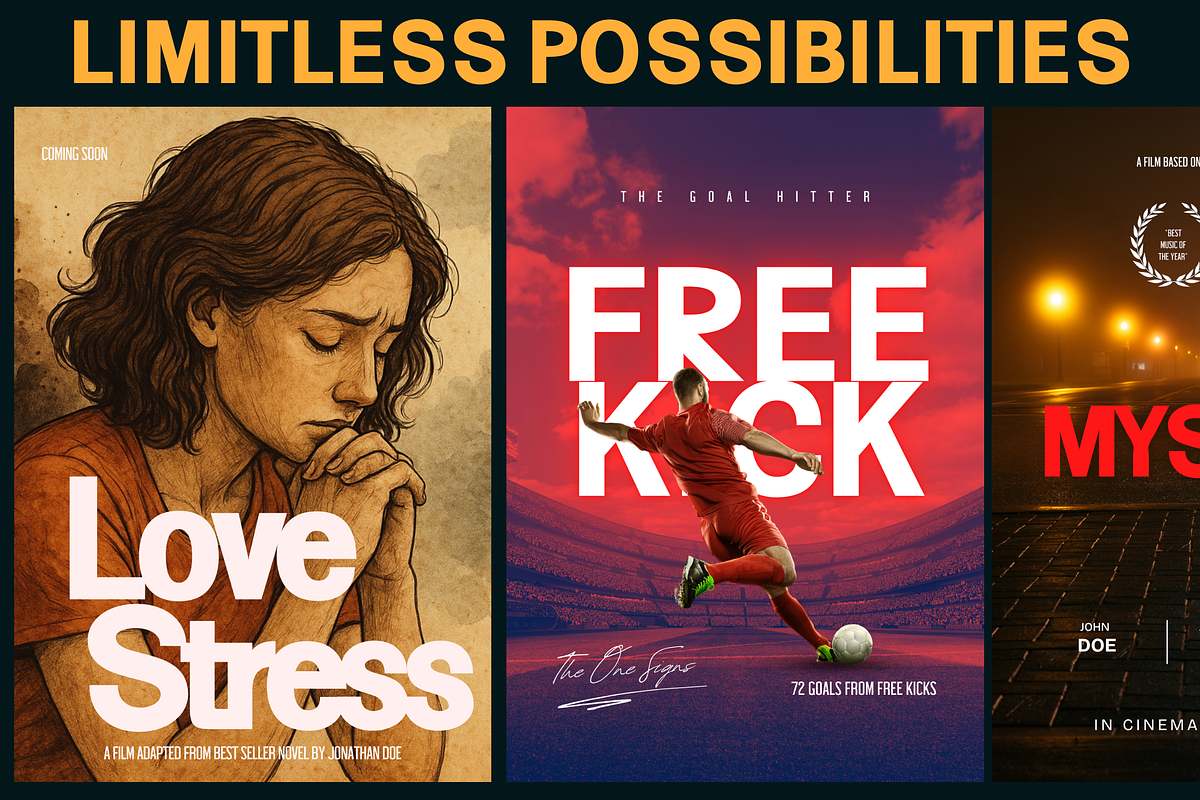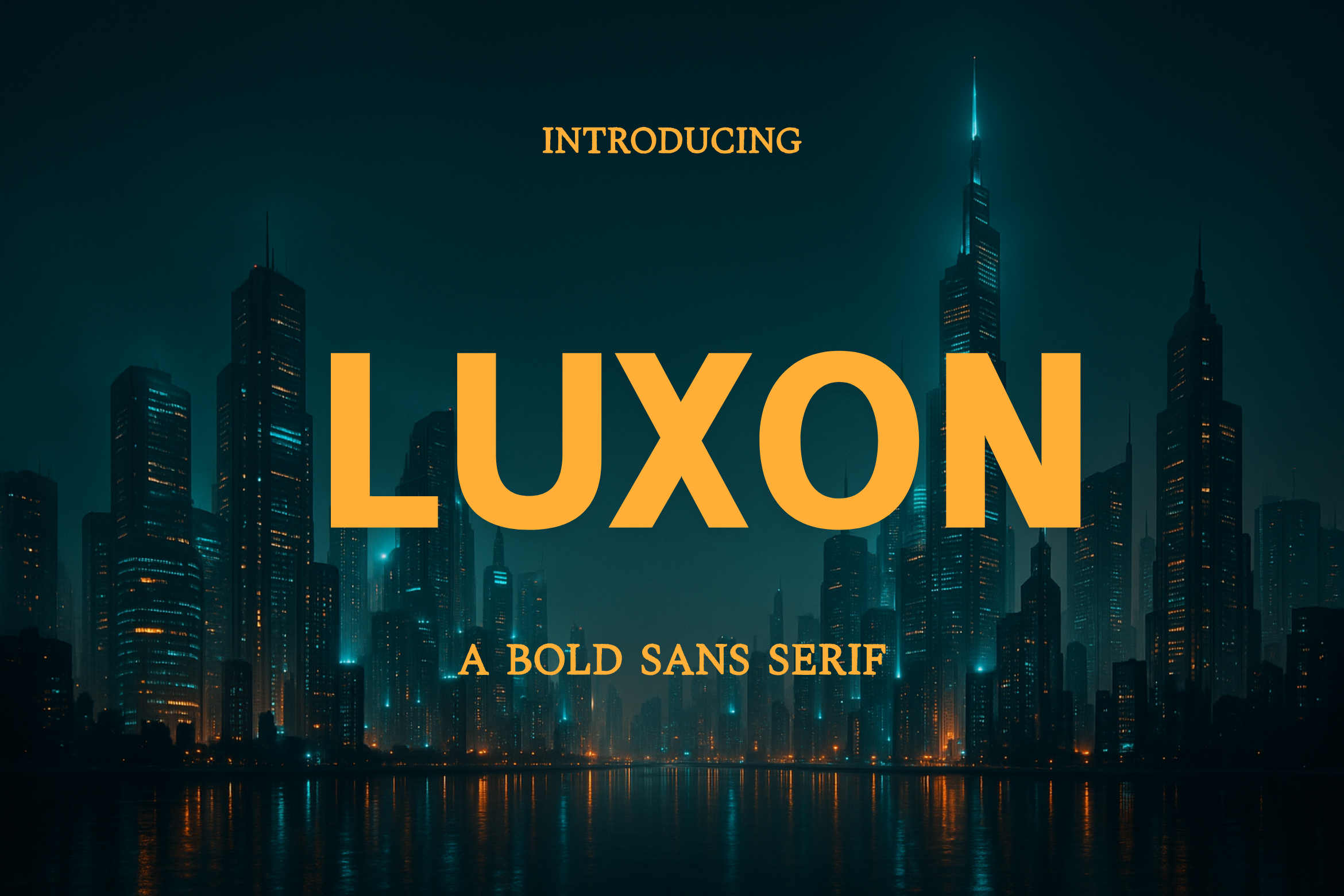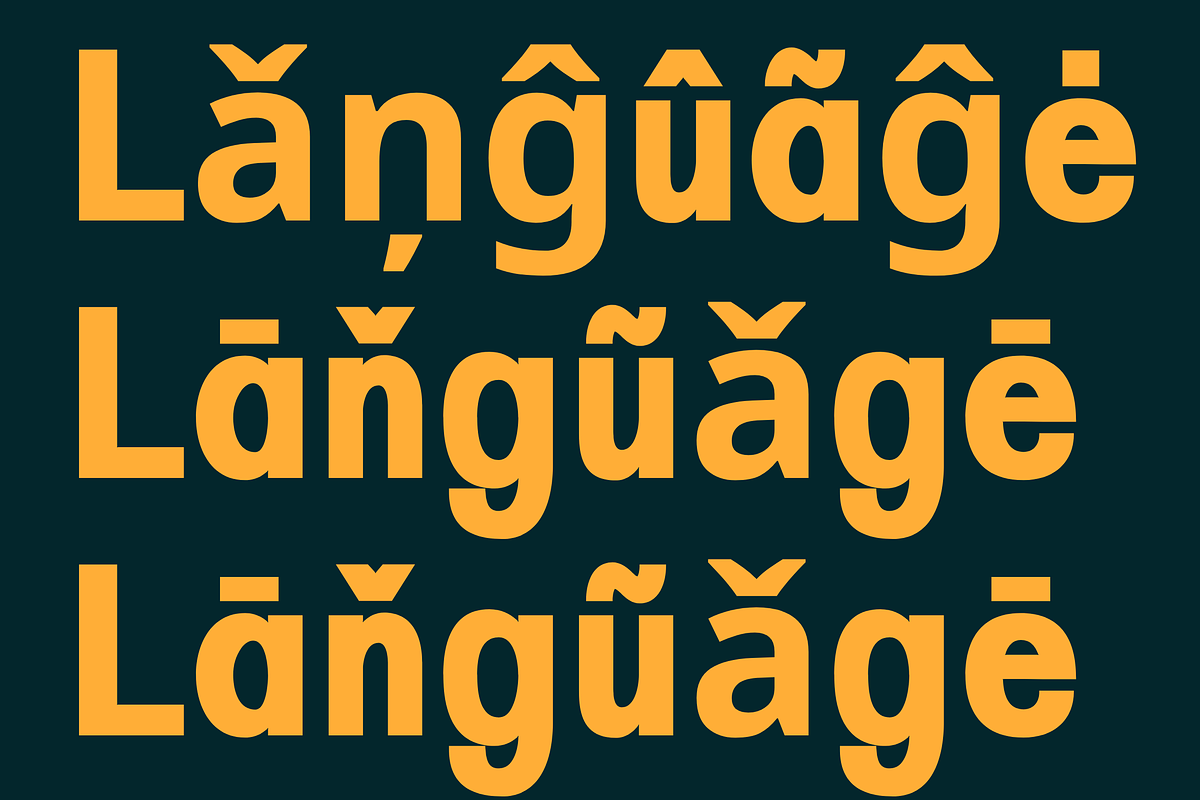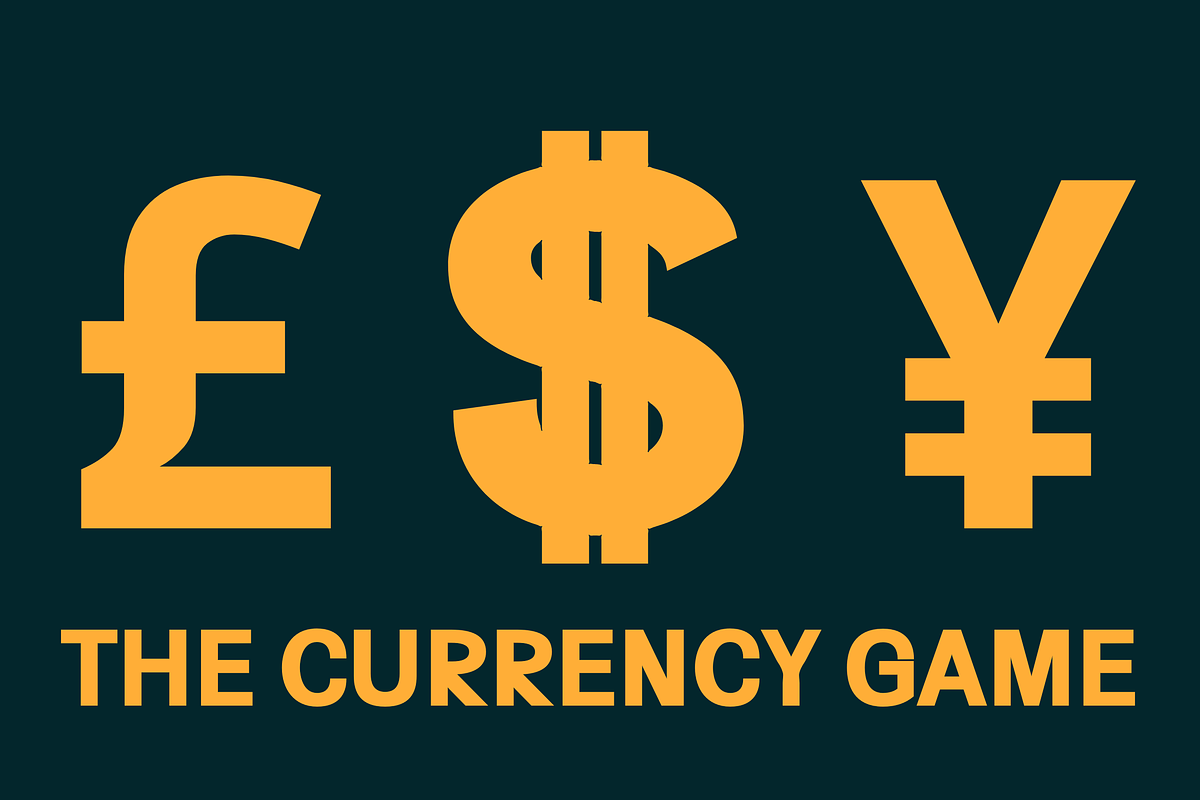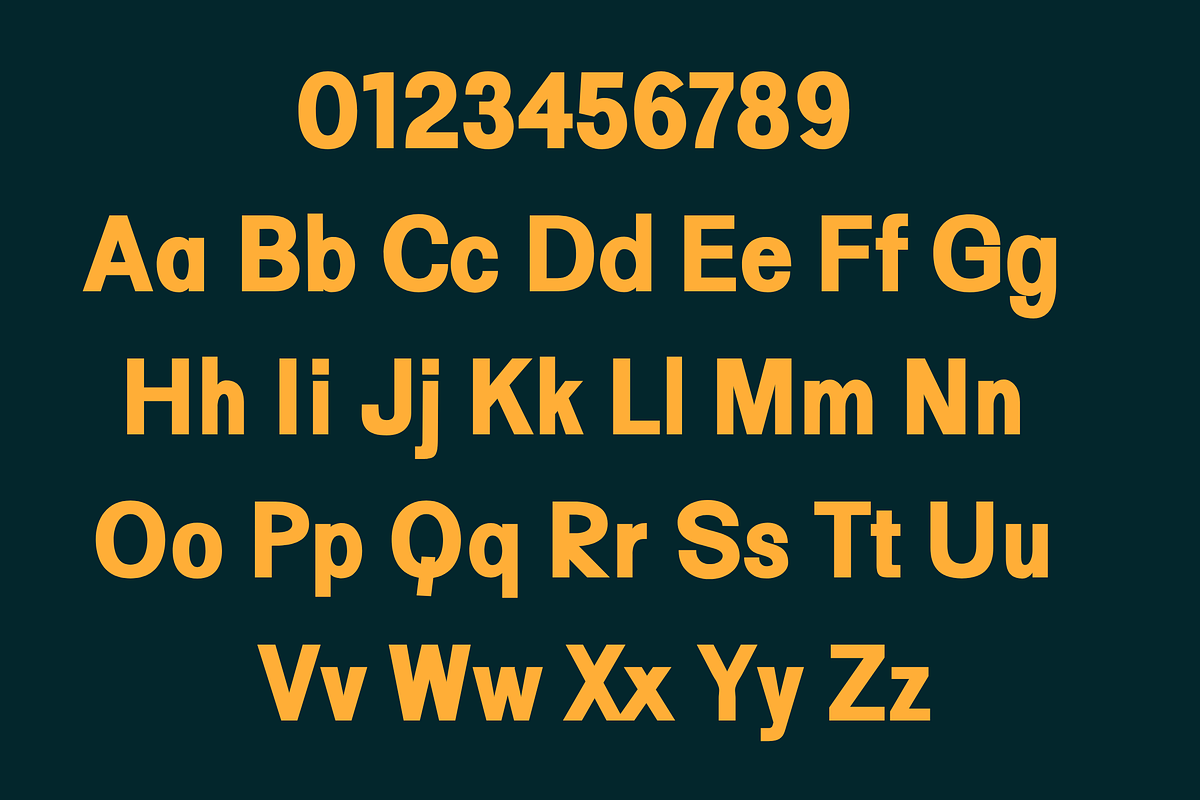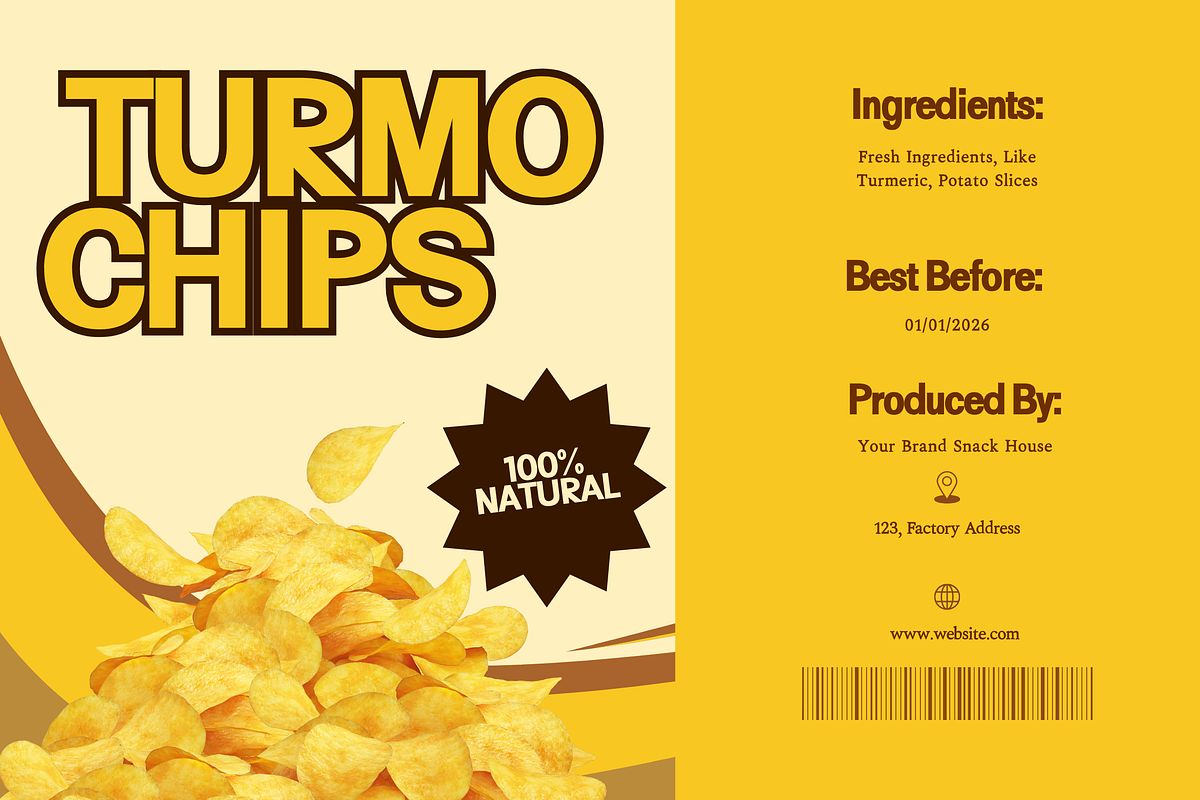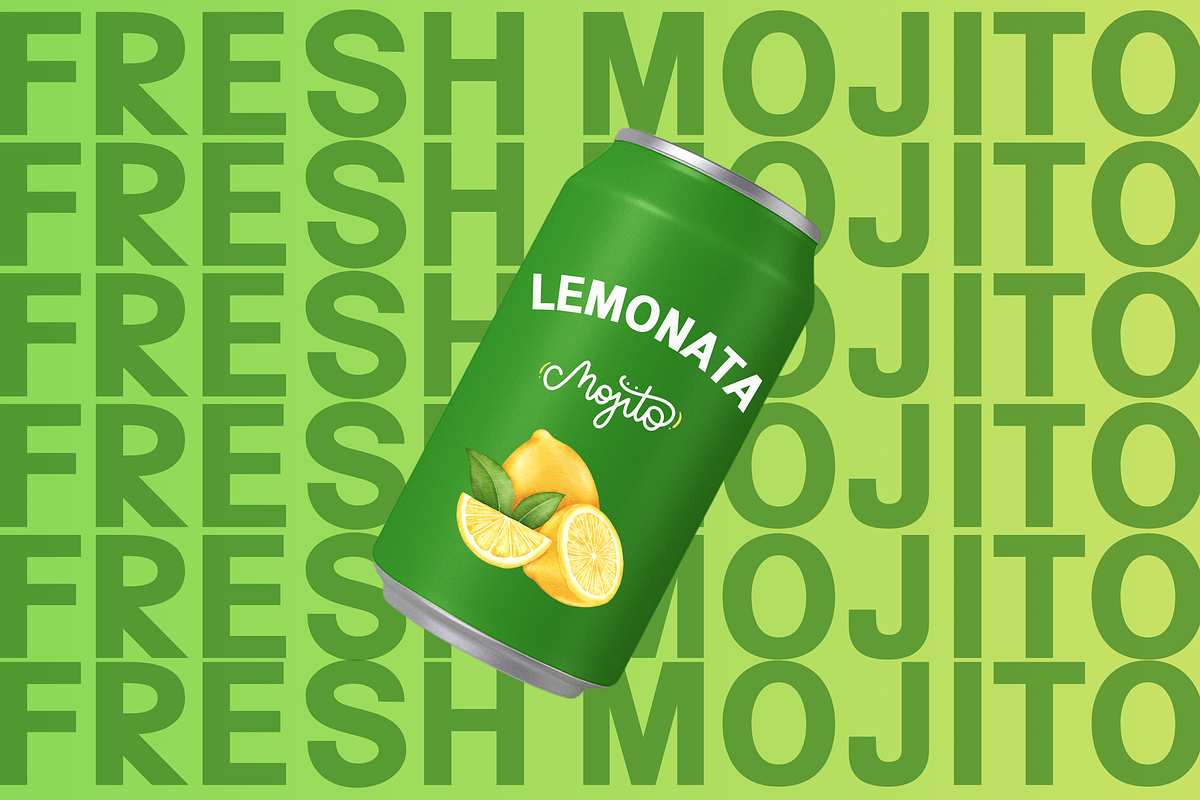
Luxon – Bold Sans Serif Font
Introducing Luxon – A Sleek & Futuristic Display Font
Step into the future of design with Luxon, a cutting-edge display font crafted for modern interfaces, tech brands, and bold creatives.
- Branding & Logos
- Sci-Fi Posters
- UI/UX Design
- Album Covers
- Gaming Titles
- Futuristic Packaging
- Minimal curves, clean edges
- Geometric styling with a techno flair
- Professional kerning and spacing
- Stylish on both light and dark backgrounds